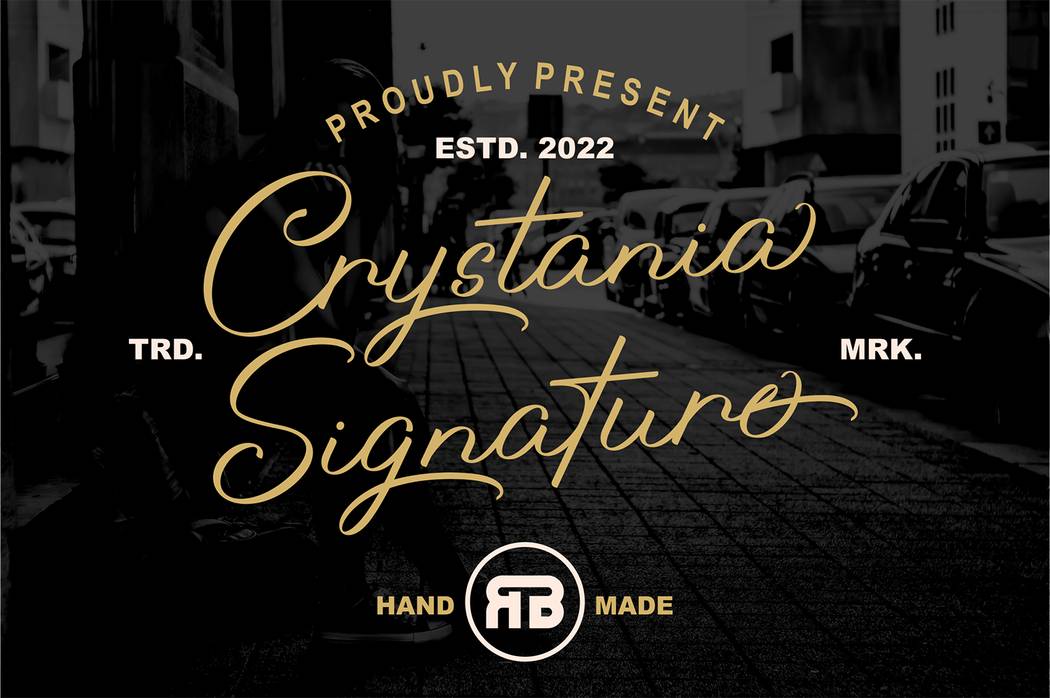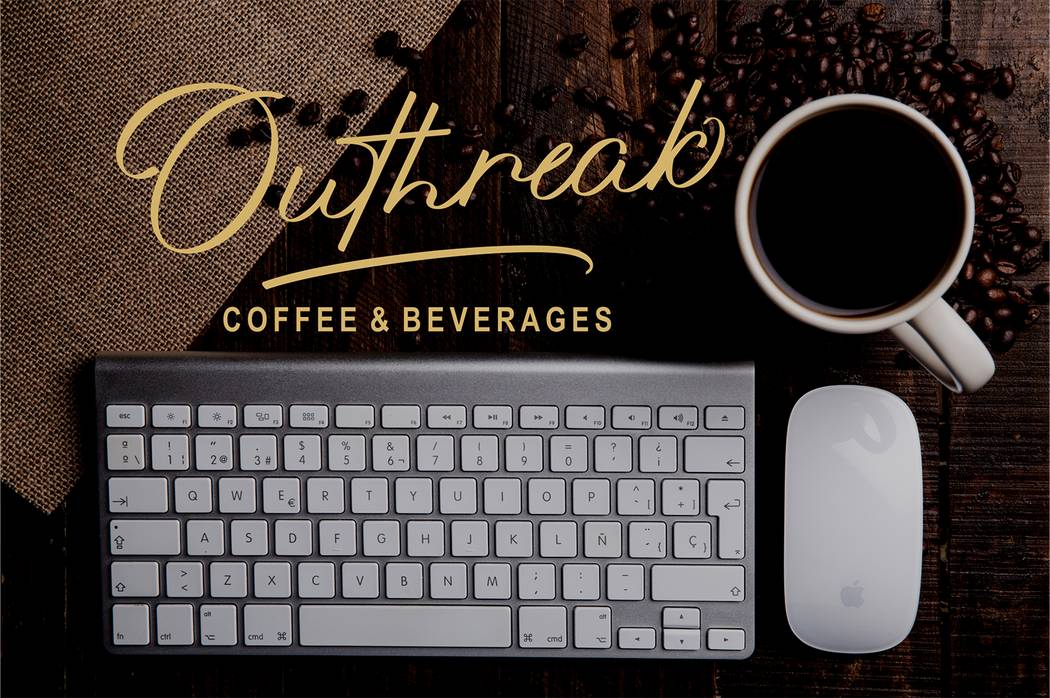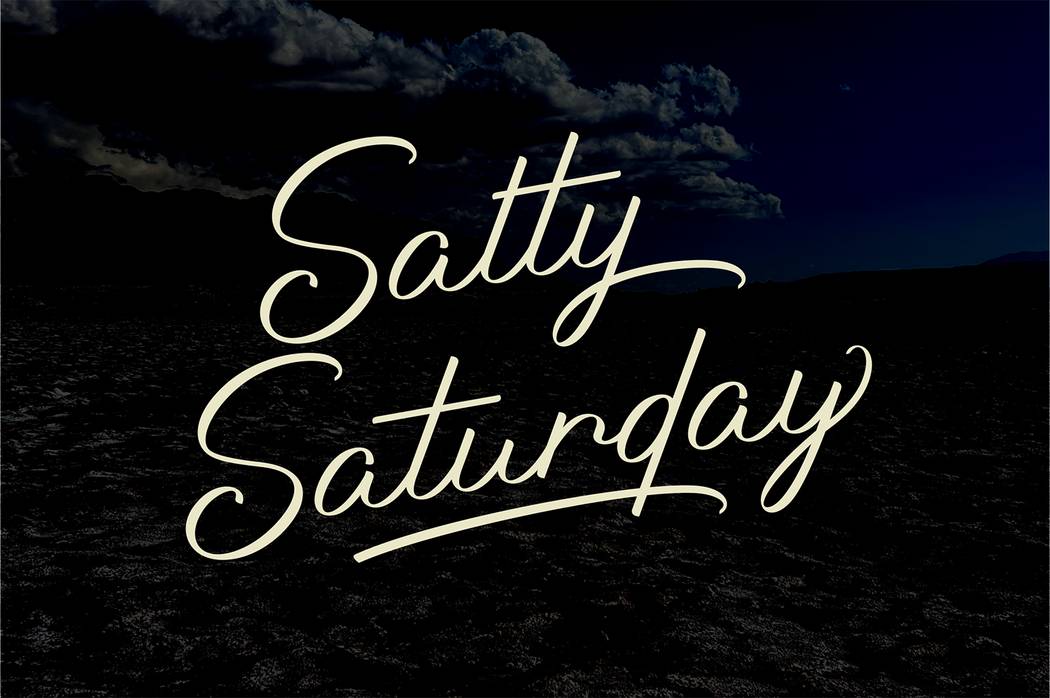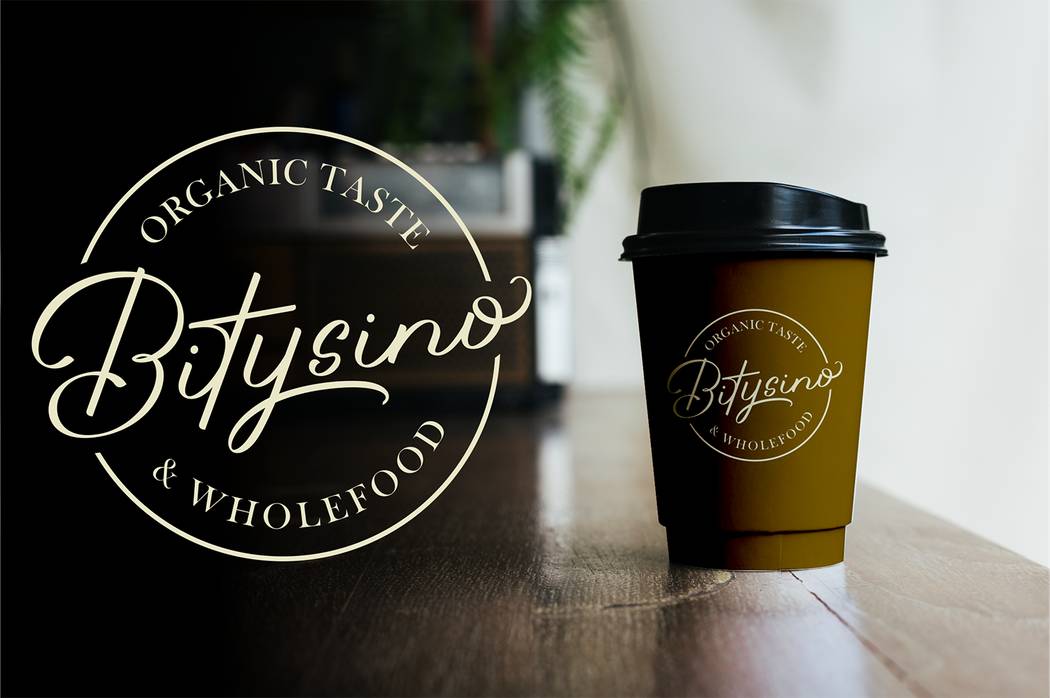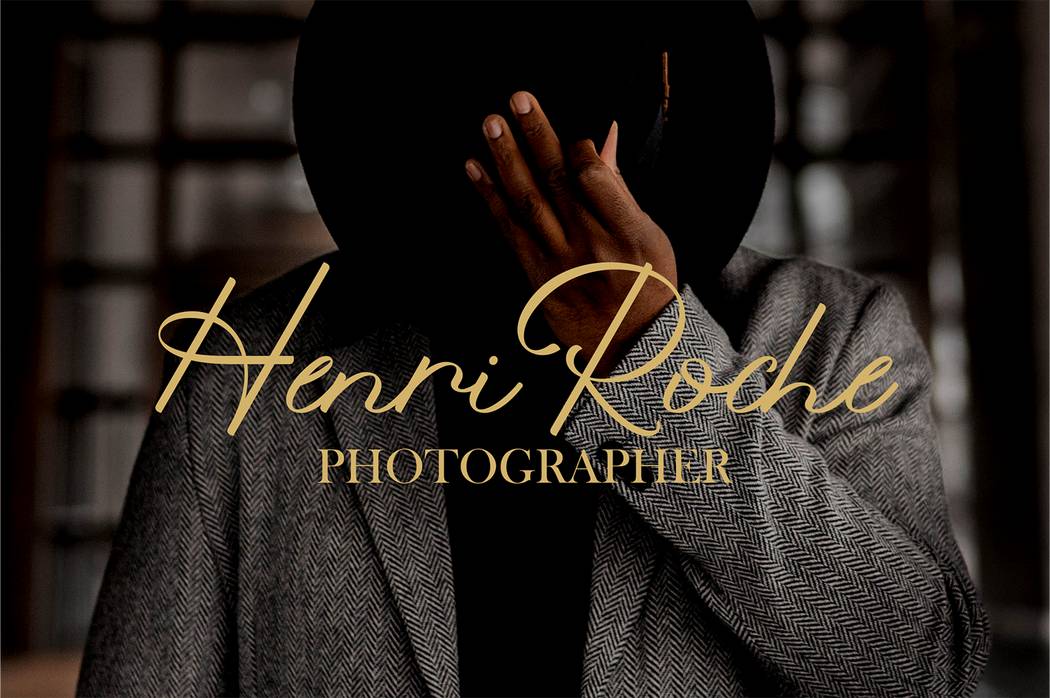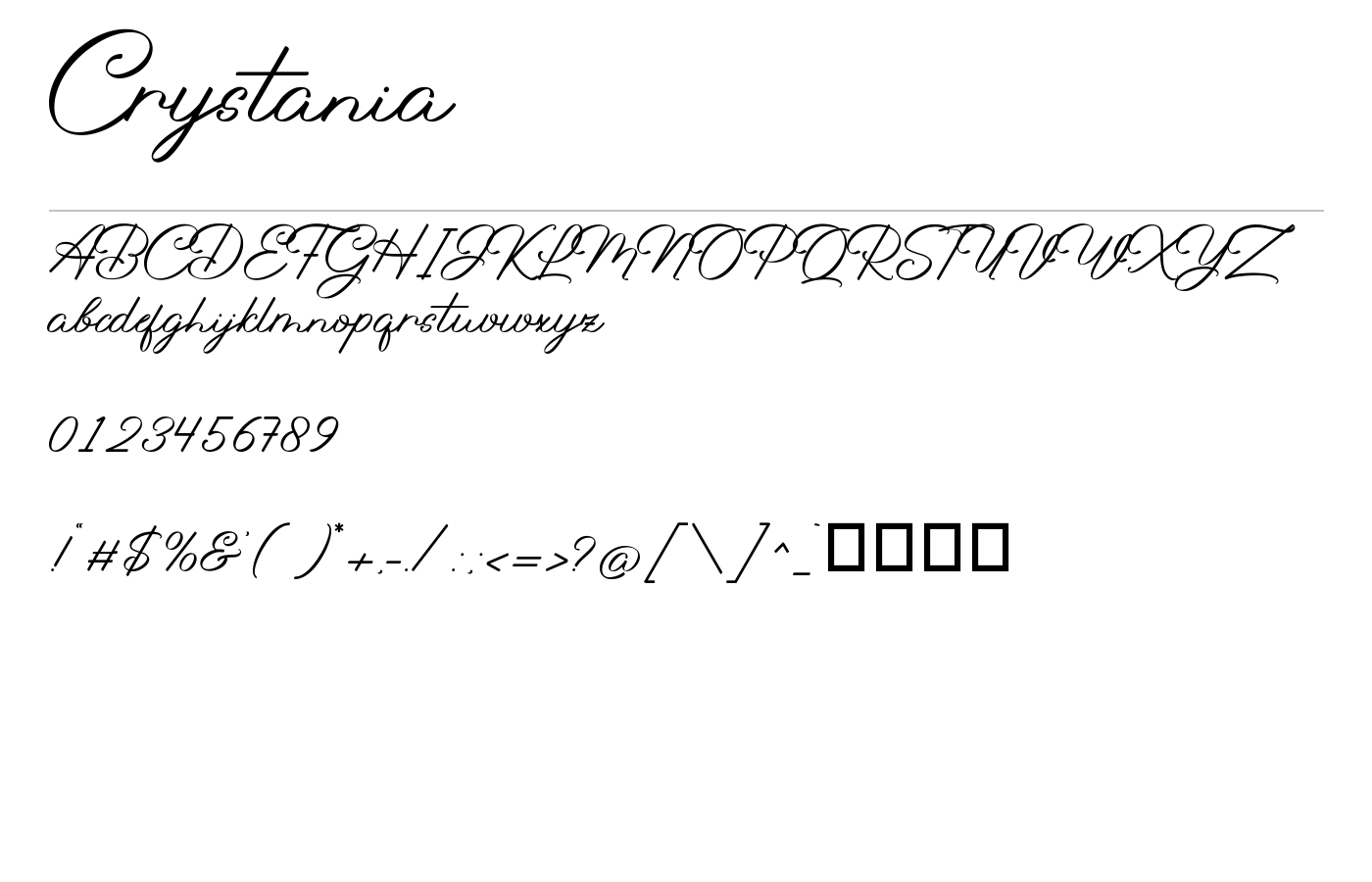
Crystania is a delicate and elegant script font characterized by its flowing, slender strokes and refined cursive style. It exudes a graceful, sophisticated charm that makes it ideal for wedding invitations, branding in fashion or luxury spaces, and elegant editorial accents. The font’s light weight and smooth, connected letterforms create an intimate, personal feel best suited for decorative headlines and stylized logos rather than extended body text.
Crystania Font
About Crystania Font